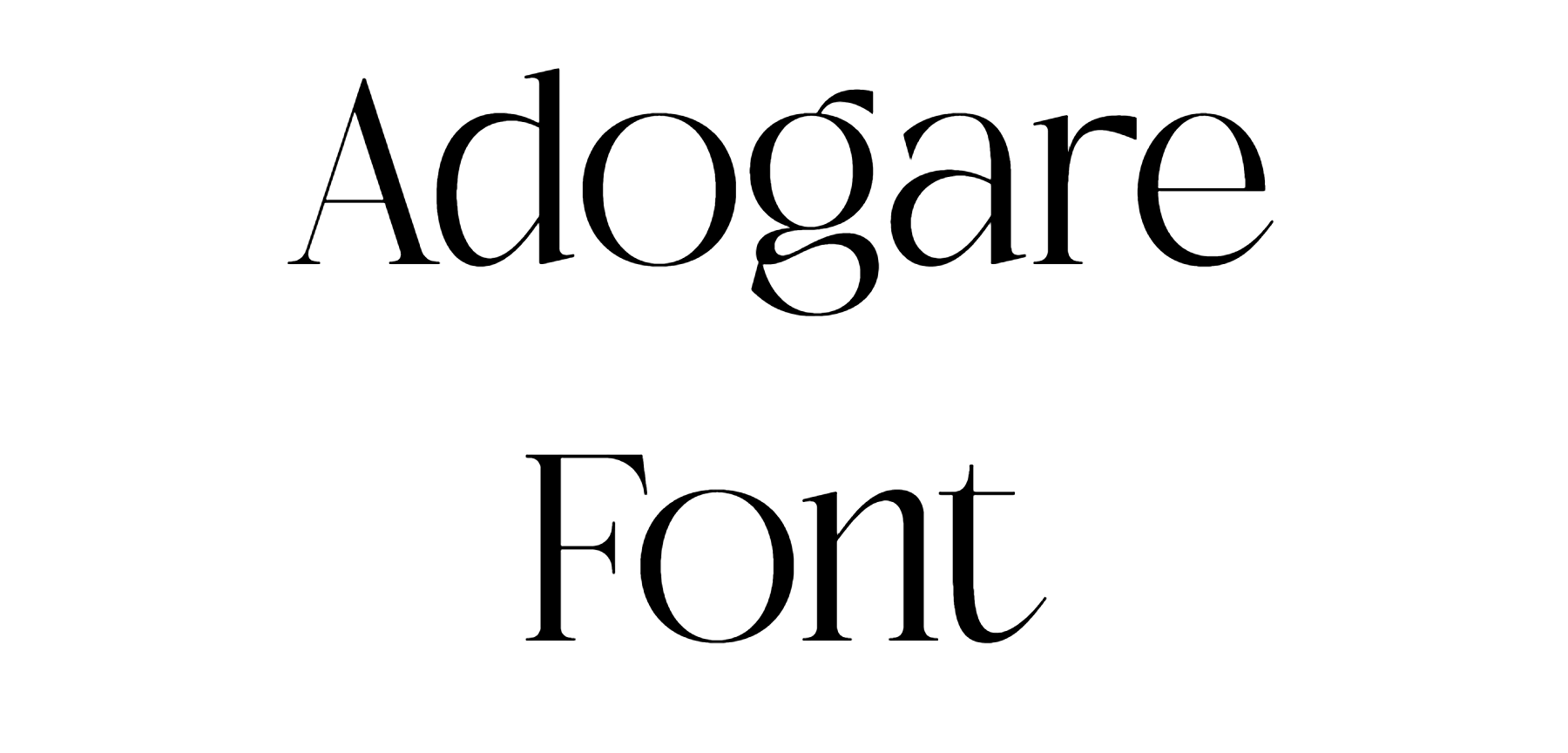
Adogare
Adogare is a serif font designed by Heru Utama Putra and published by Storytype Studio (2021). Small strokes at the ends of its letters (the serifs) give it a classic, trustworthy look. It's a free download, and you can try it with your own text in the preview above first.
- OpenType features: Ligatures (including optional ones), stylistic alternates, 2 stylistic sets and fractions
- Extra characters: 54 copy-and-paste alternates (Private Use Area)
What You Can Type With Adogare
With complete upper and lowercase letters and all ten digits, Adogare is ready for real wording, not just a single headline. Everyday marks like &, !, ? and @ are there too. Thanks to its accented letters, it also works for Spanish, French, German, Portuguese and Italian, not just English.
How to Use the Alternate Letters in Adogare
Where Adogare Works Best
Adogare is a natural fit for book covers, magazine headlines and classic branding. Its lowercase letters are tall compared to the capitals, which keeps it readable at smaller sizes. Serif fonts shine in headlines and printed text. For long paragraphs on phones, check that it still reads well at small sizes.
Who designed Adogare font?
Does Adogare support accented letters?
Yes. Adogare includes the accented letters needed for Spanish, French, German, Portuguese and Italian, so it works for more than just English.